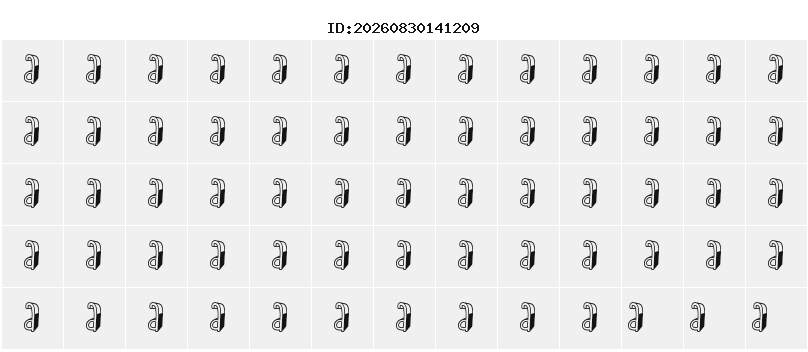
The Super Ryal 2015 Preview
About The Super Ryal 2015.ttf
The Super Ryal 2015.ttf is a modern, elegant sans-serif font designed for ultimate readability and visual harmony. Perfect for branding, headlines, web design, and print materials.